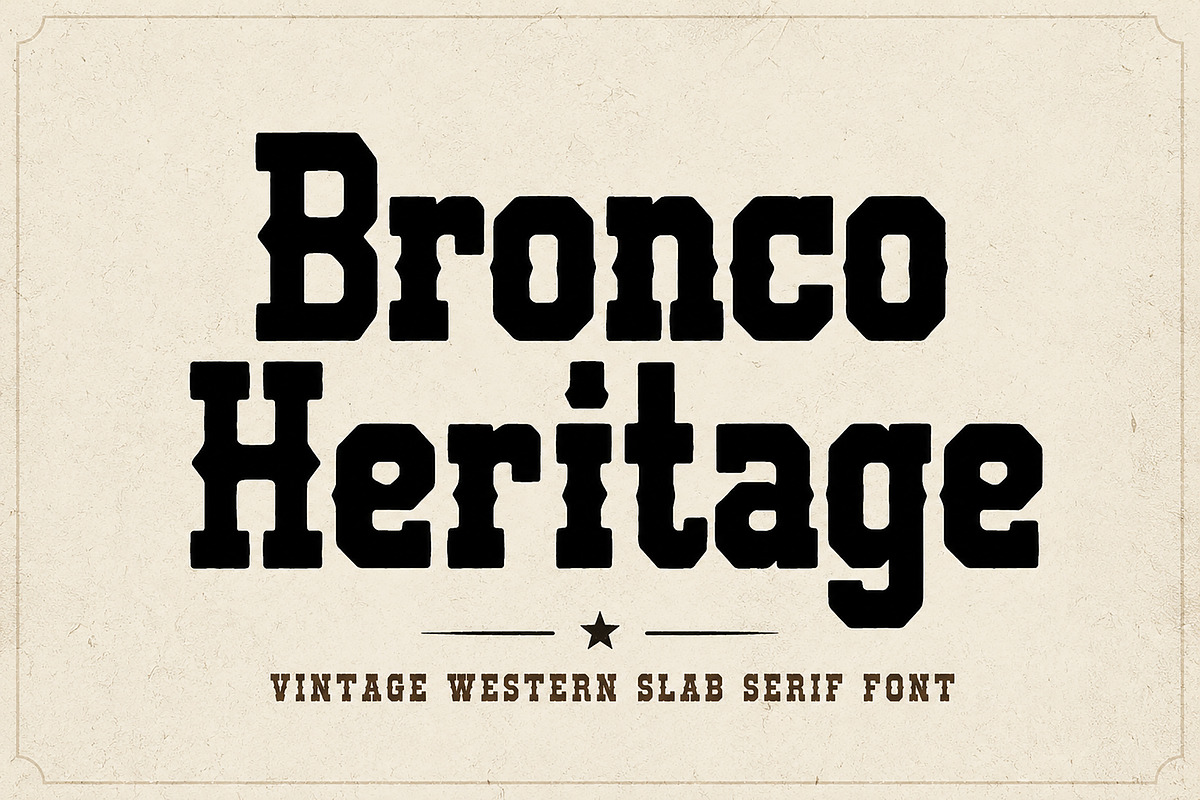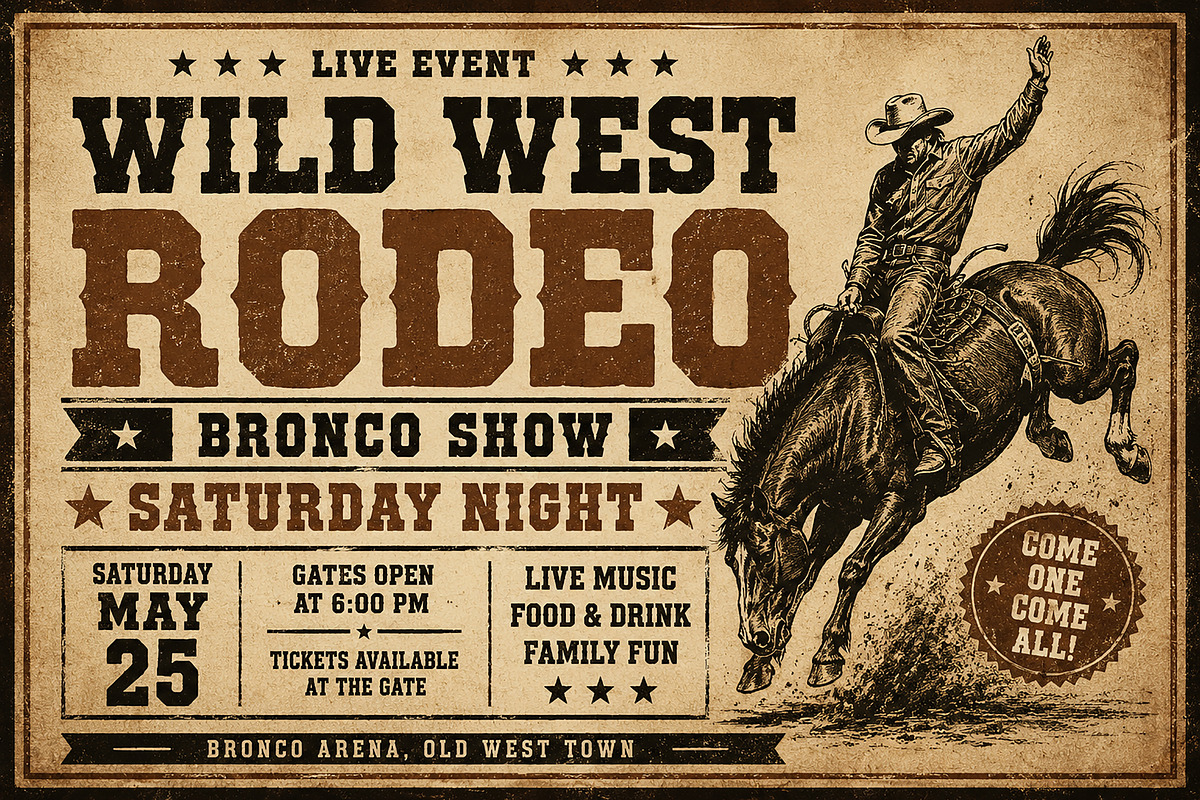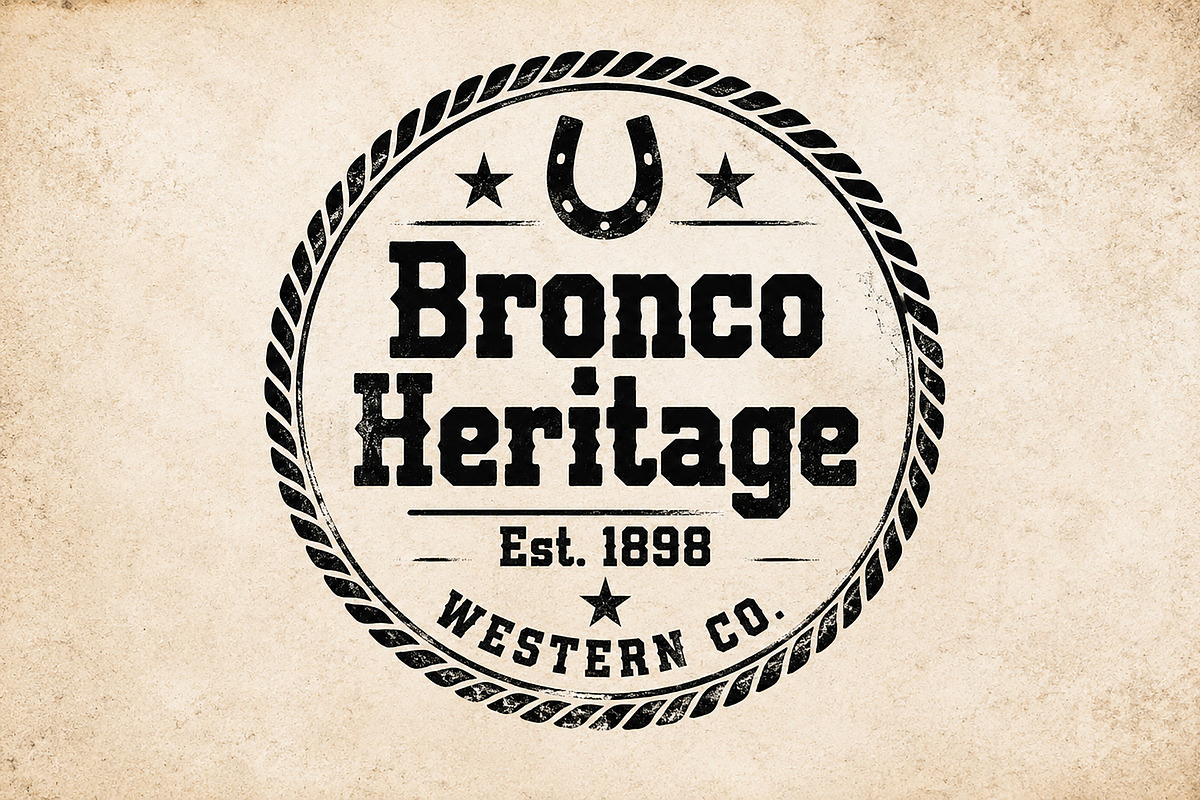
Bronco Heritage
Bronco Heritage – Vintage Western Slab Serif Font
Bronco Heritage is a bold vintage western slab serif font inspired by classic rodeo posters, cowboy branding, ranch signage, and old-west typography. Designed with strong letterforms, rugged character, and authentic western charm, this typeface delivers a timeless frontier aesthetic perfect for creating eye-catching designs.
Whether you're designing western logos, vintage labels, apparel graphics, packaging, posters, merchandise, or branding projects, Bronco Heritage brings a powerful and nostalgic western spirit to your work. Its bold structure ensures excellent readability while maintaining an authentic handcrafted western look.
Perfect for designers, crafters, small businesses, and branding professionals looking to add a rustic heritage feel to their projects.
Uppercase Letters
Lowercase Letters
Bring the authentic spirit of the American West into your next creative project with Bronco Heritage.